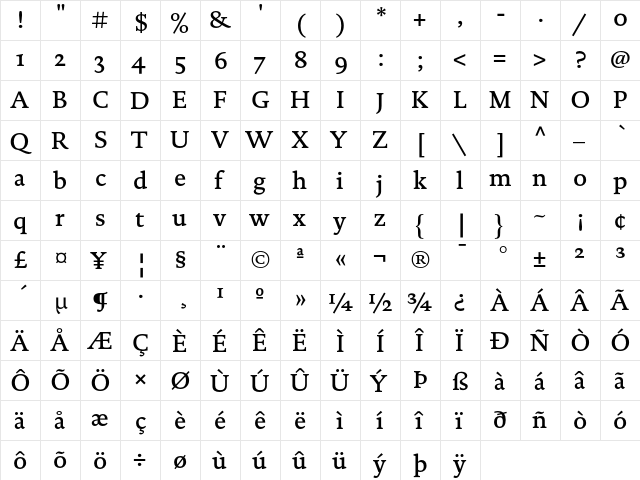
DTLDocumentaST Medium
Design Context for DTLDocumentaST Typeface
DTLDocumentaST takes a measured approach to typography — its balanced proportions and neutral character make it a reliable workhorse for both digital and print work.